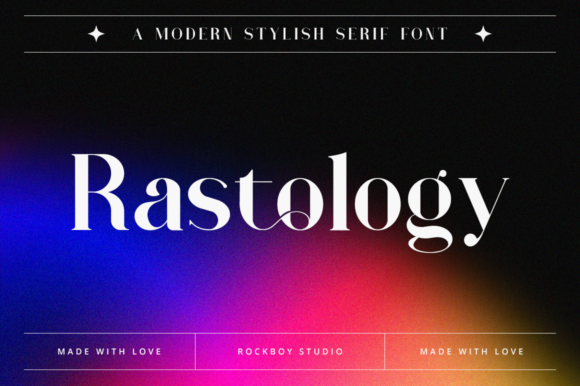
Introducing Rastology - An Enchanting Serif Font for Your Jewelry Business
Embark on a journey of sophistication and allure with Rastology, an exquisite serif font meticulously crafted to enhance the allure of your jewelry creations. Step into a realm of timeless beauty where each letter dances with grace and elegance, capturing the essence of your precious designs.
With Rastology, you'll weave a tapestry of emotions through your jewelry, evoking a sense of timeless elegance and unforgettable charm. Its meticulously crafted curves and delicate strokes whisper tales of intricate craftsmanship, inviting your customers to indulge in the luxury of your creations.
Unleash your creativity with Rastology. Its versatility knows no bounds, allowing you to craft stunning logos that shimmer with brilliance, captivating product descriptions that ignite desire, and social media posts that resonate with sophistication. Each piece you create becomes a testament to your artistry, leaving an enduring impression on your audience.
Embrace the power of Rastology and let its enchanting aura elevate your jewelry business to unprecedented heights. Allow its timeless beauty to captivate your customers, drawing them into a world of exquisite craftsmanship and undeniable elegance.